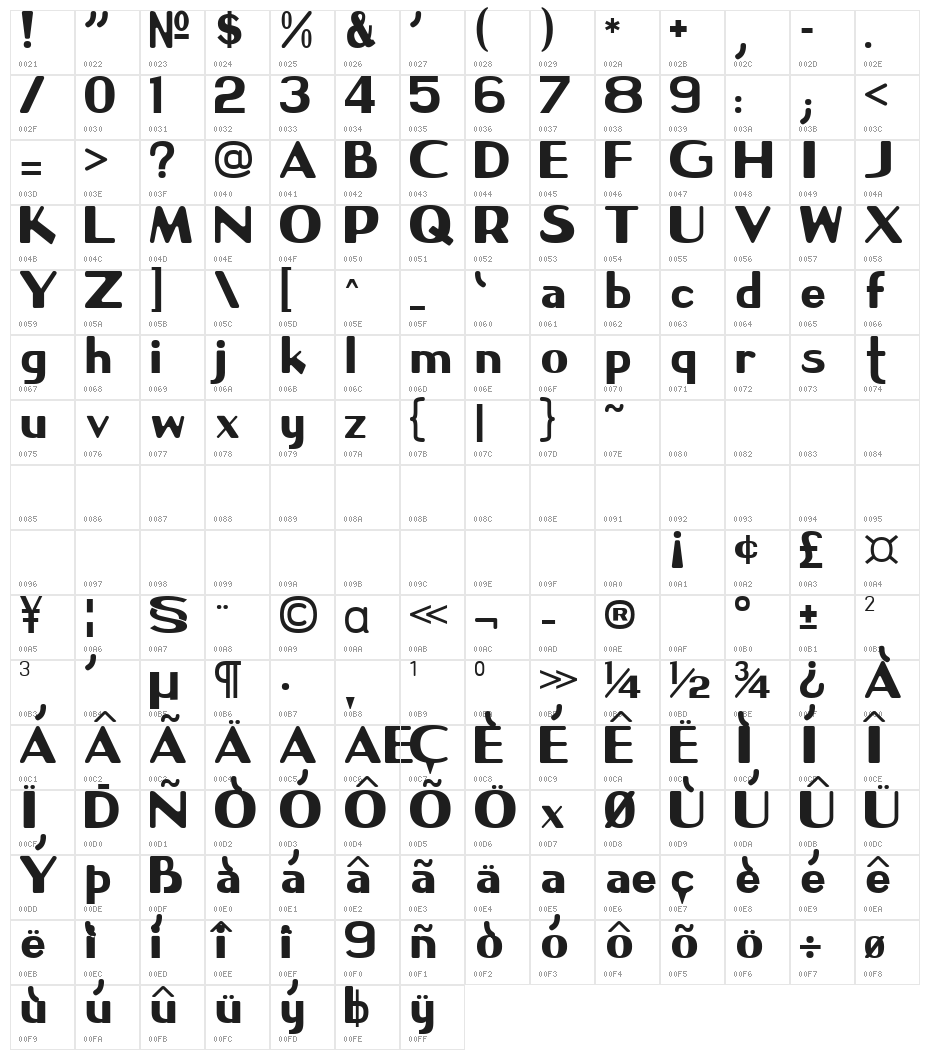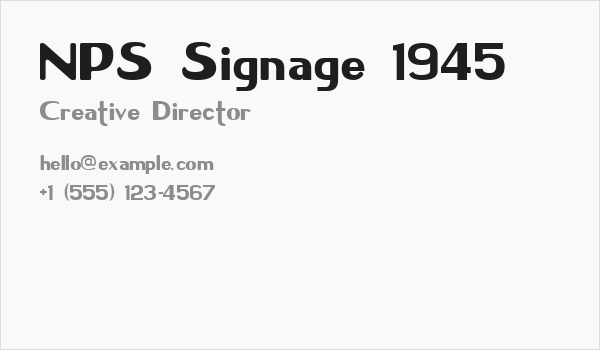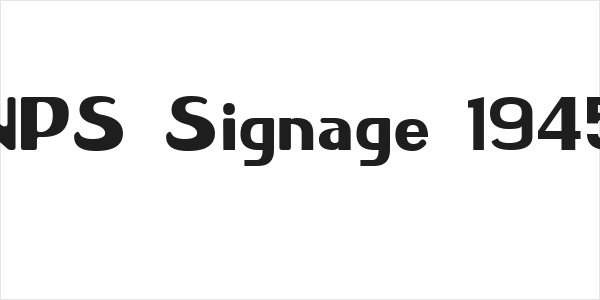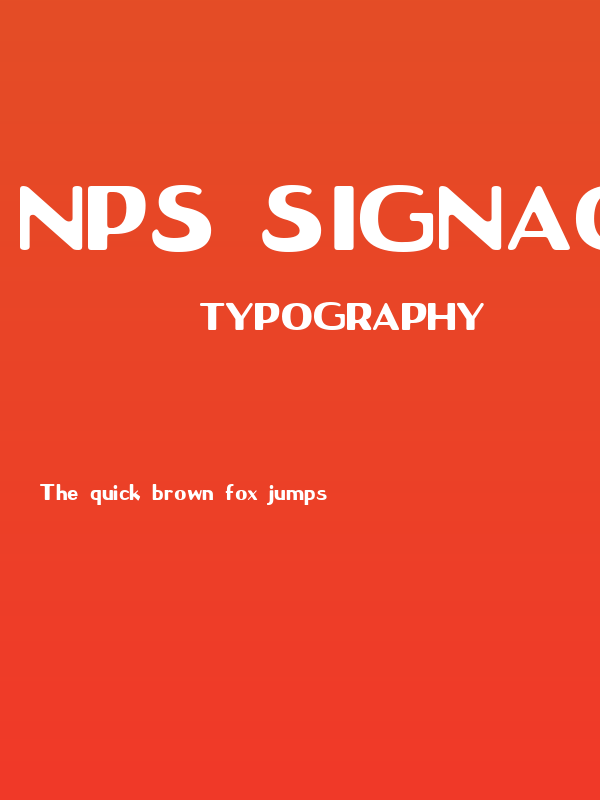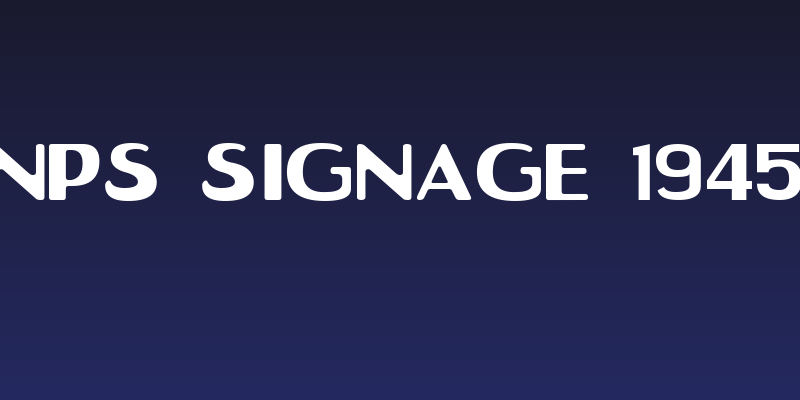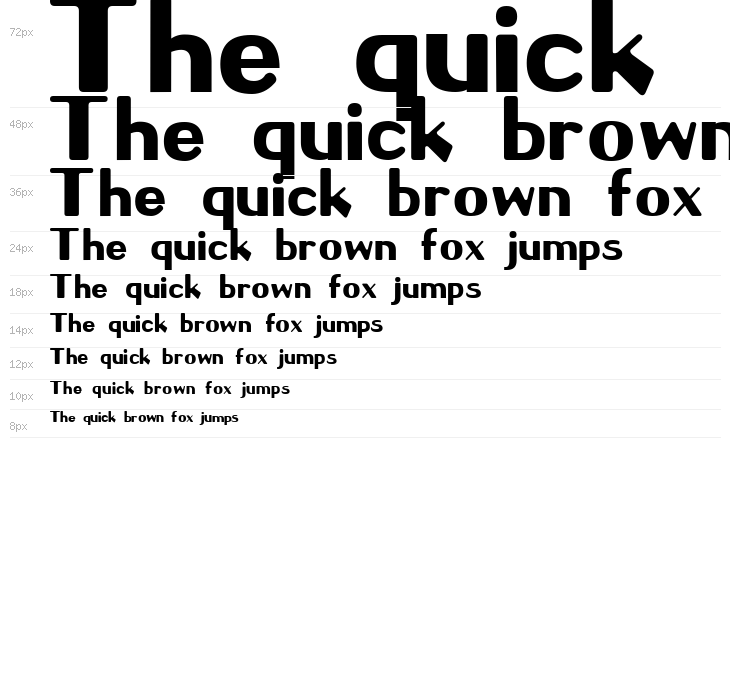
NPS Signage 1945 Font
NPS Signage 1945 Description
This font exhibits a bold and robust style with a strong presence, characterized by its thick strokes and slightly condensed letterforms. The uppercase letters are particularly striking, with a geometric influence that adds a modern touch. The lowercase letters maintain a consistent weight, ensuring readability and balance. Numerals are clear and distinct, making them suitable for various applications. The special characters are well-integrated, complementing the overall design. This font's design is reminiscent of mid-20th-century signage, offering a nostalgic yet timeless appeal.
| Use Case | Headlines, Logos, Signage |
| Proposed Projects | Ideal for use in signage, branding, posters, and any project requiring a bold, impactful typeface. |